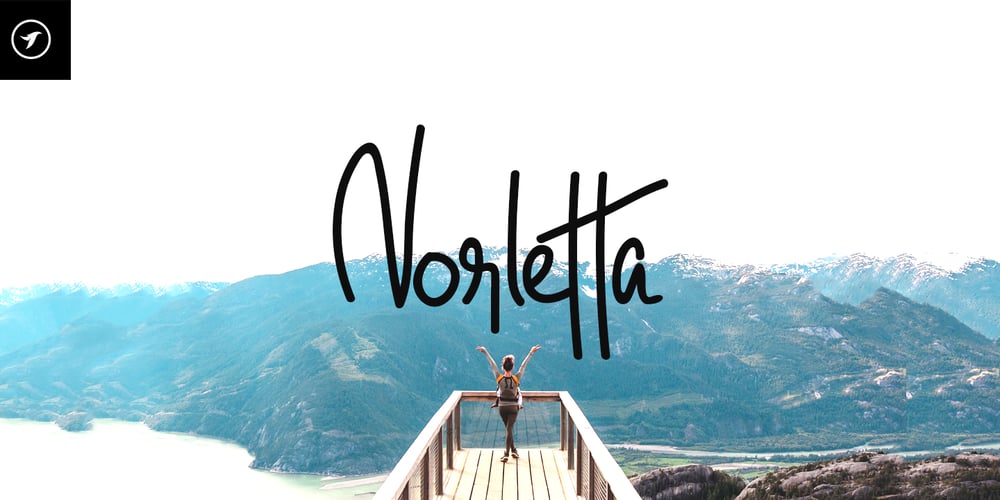
Norletta Font Family was designed by Lisha Joseph and published by Designova. Norletta contains 2 styles and family package options. Norletta is an extremely unique and beautiful handwritten font for luxury/branding/logotype/wedding invites/greeting cards / promotional graphics. Norletta is handcrafted with a unique custom brush, having perfection and aesthetics at its level best.Advanced Kerning & Essential Ligatures:We have performed advanced, in-depth kerning to make sure the font looks amazing on all possible letter combinations. Norletta includes all major ligatures shown in the preview